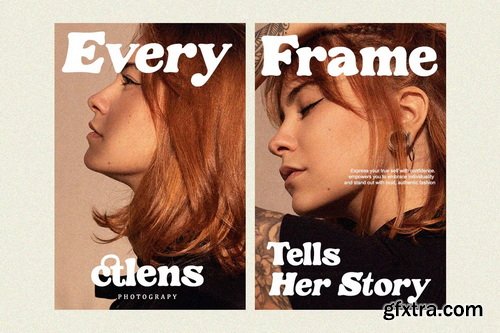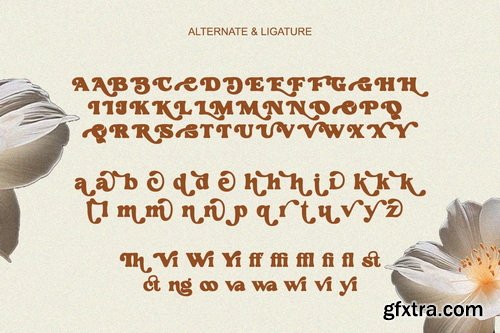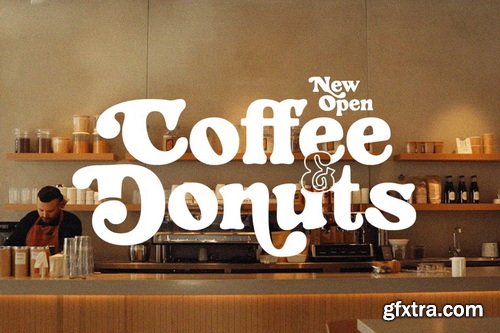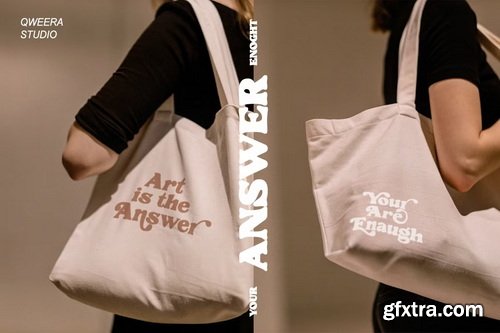
CreativeMarket - SadBoldy - Retro Display Serif
SadBoldy is a striking retro display serif that blends vintage charm with contemporary boldness. Featuring both Regular and Italic styles with expressive alternates and ligatures, this typeface delivers unmatched versatility for eye-catching branding, memorable logos, distinctive packaging, and retro-inspired poster designs. With its chunky serifs and dynamic italic variant, SadBoldy captures the essence of classic typography while offering fresh, modern applications. The carefully crafted alternates and ligatures allow for authentic retro styling with contemporary flair.